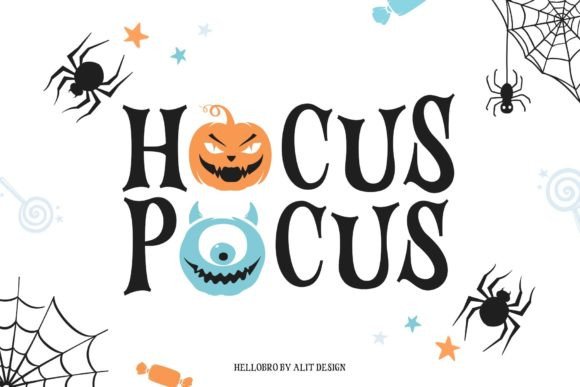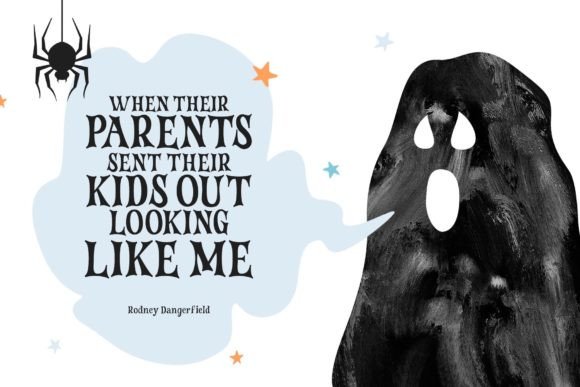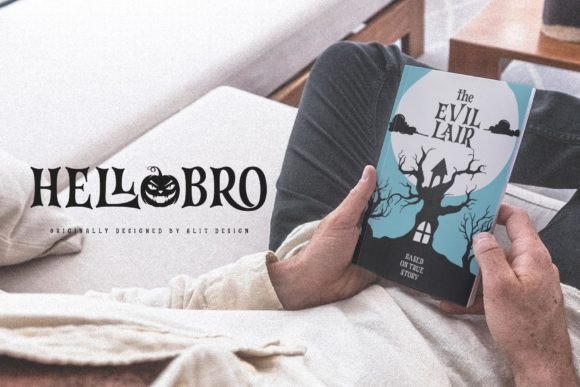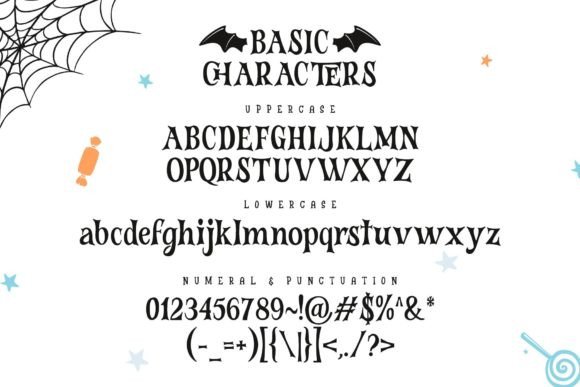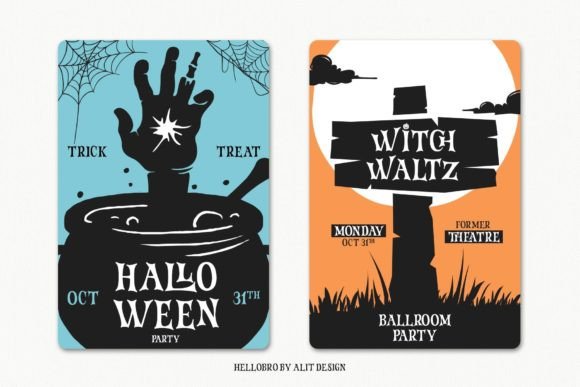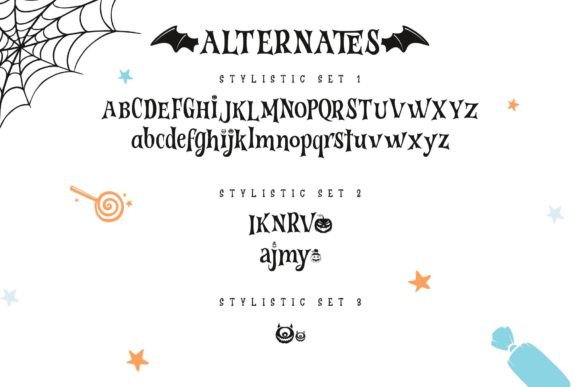
The Spooky Charm of Hellobro Font: A Designer’s Delight
I still remember the year I was tasked with designing a Halloween party invitation for a client. I had a clear vision of a spooky yet fun design, but I was struggling to find the perfect font to bring it all together. That’s when I stumbled upon the Hellobro font, and it instantly became the missing piece to my design puzzle. In this article, I’ll share my experience with Hellobro, its features, and how to make the most of it in your designs.
An Honest Review of Hellobro Font
What I Love About Hellobro ✨
- Unique and quirky design that’s perfect for Halloween-themed designs 🎃
- Excellent for creating eye-catching titles and headings ✅
- Supports OpenType features, glyphs, and stylistic alternates for added versatility
- Easy to read and understand, even at smaller font sizes
- May not be suitable for body text or lengthy content due to its bold and playful nature ⚠️
- Limited use outside of Halloween or spooky-themed designs, as it may not fit with other aesthetics
Similar Fonts or Alternatives to Hellobro
If you like Hellobro, you may also enjoy these similar fonts:
- Raleway: A elegant and modern font with a similar bold and playful feel. Use for: luxury brands, high-end designs.
- Great Vibes: A fun and energetic script font with a similar handwritten feel. Use for: creative projects, social media graphics.
- Pacifico: A beautiful and elegant script font with a similar relaxed and friendly vibe. Use for: lifestyle brands, travel designs.
- Rock Salt: A bold and quirky font with a similar distressed and playful feel. Use for: edgy designs, bold statements.
The Backstory of Hellobro Font
The Hellobro font was designed with the intention of creating a unique and playful font for Halloween-themed designs. The designer aimed to capture the spooky yet fun essence of the holiday, making it perfect for party invitations, decorations, and other creative projects. While the actual design process may be shrouded in mystery, it’s clear that Hellobro has become a beloved font among designers and crafters.
| What type of designs is Hellobro best suited for? | Hellobro is perfect for Halloween-themed designs, party invitations, and spooky decorations. |